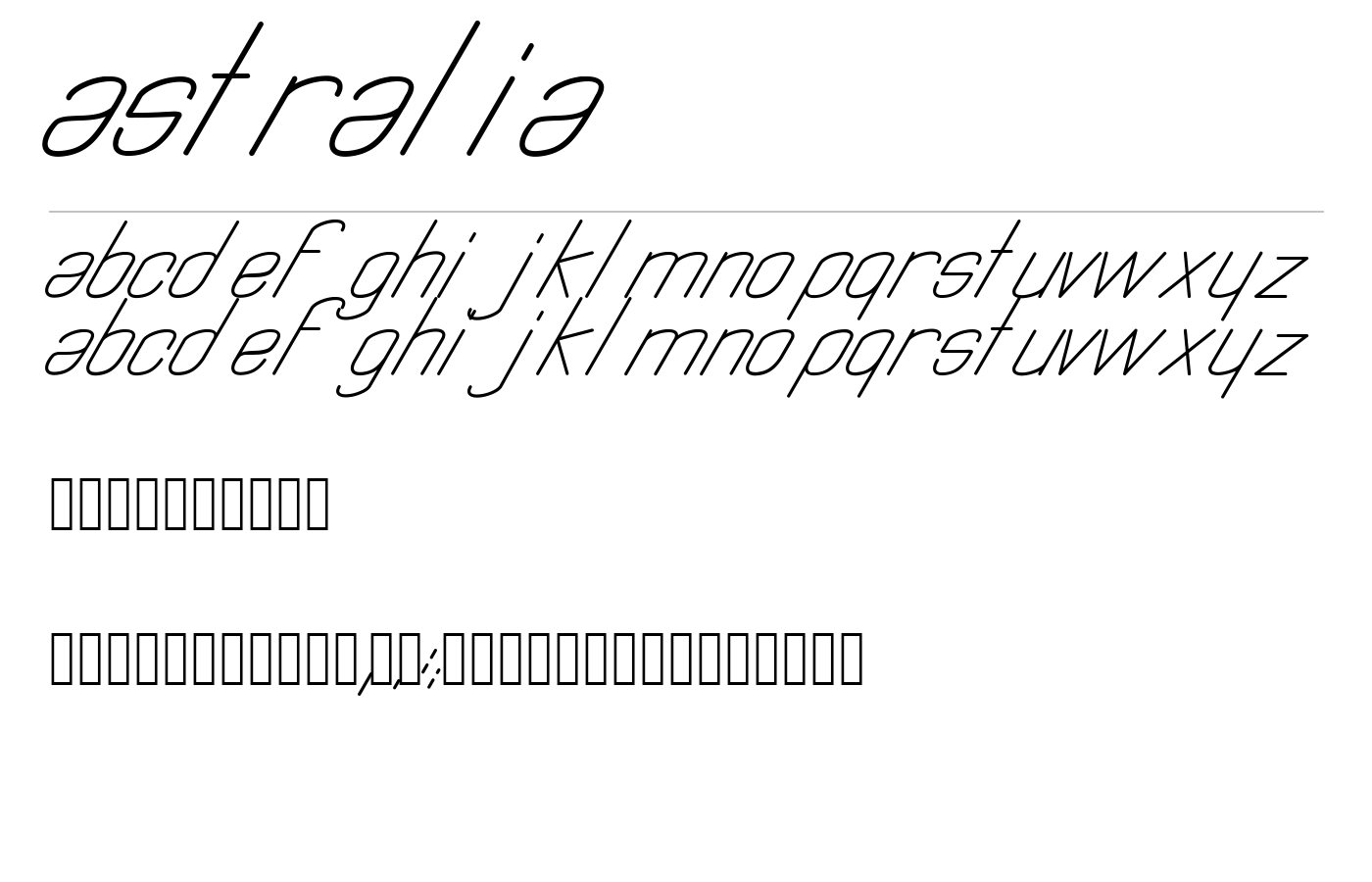
Astralia is a sleek, modern sans serif font with a light weight and an elegant, narrow structure that leans slightly to the right, giving it a dynamic, handwritten feel. Its clean, geometric letterforms with modest stroke contrast and smooth curves make it perfect for contemporary branding, fashion, and editorial designs seeking a refined and stylish look. This font works especially well in headlines and logos where a sophisticated yet approachable tone is desired.
Astralia Font
About Astralia Font